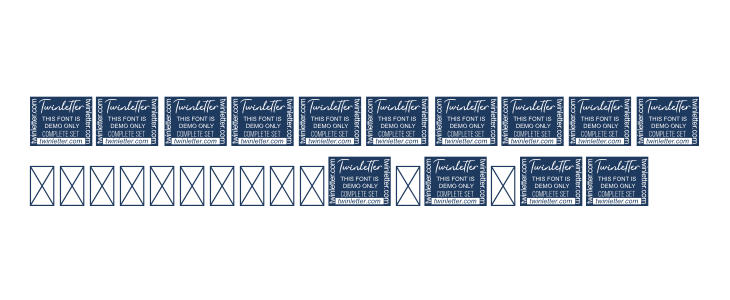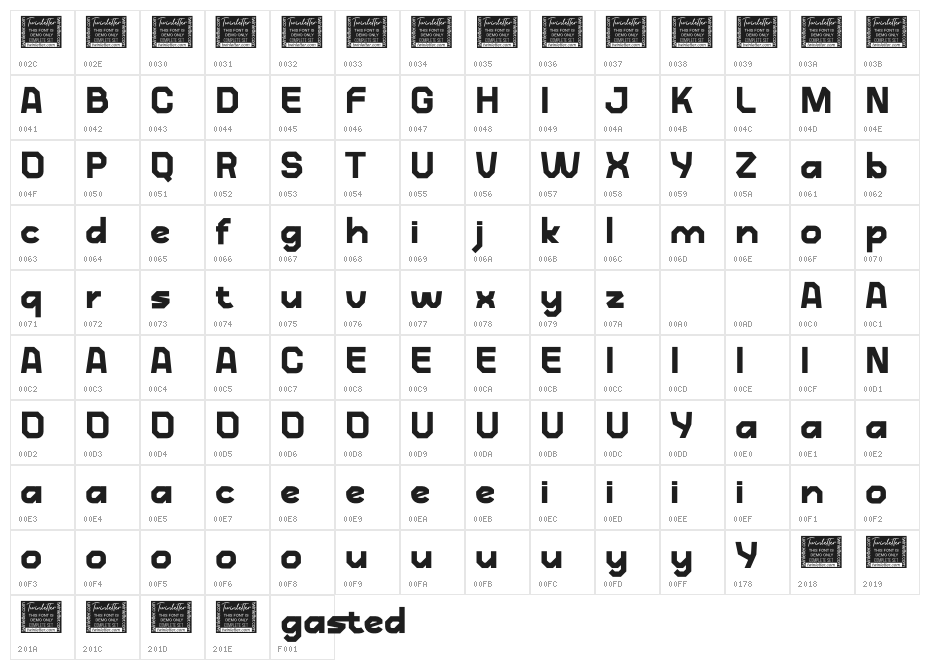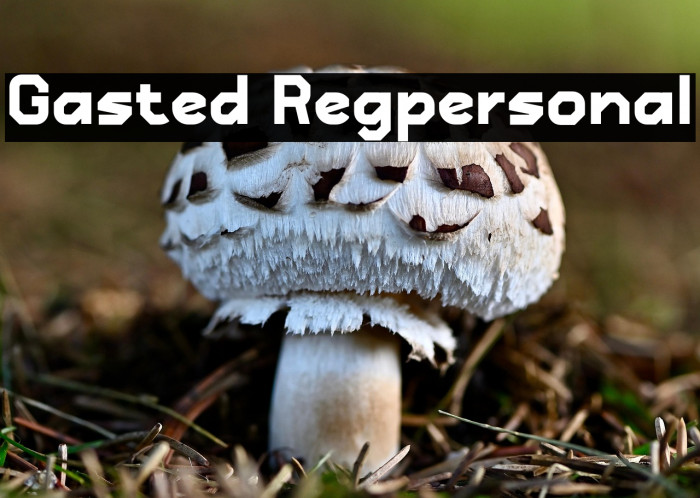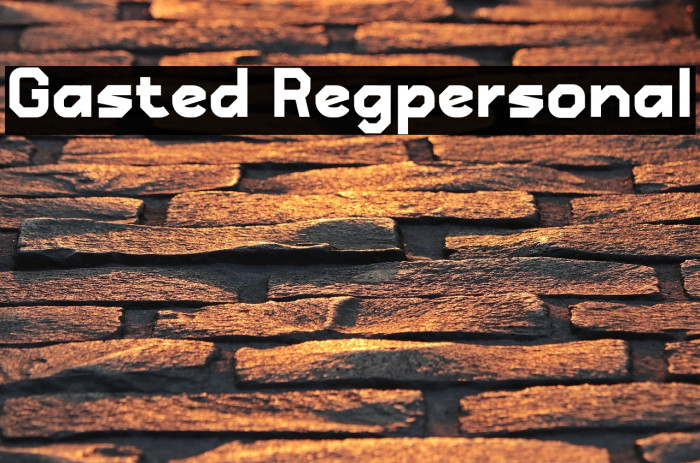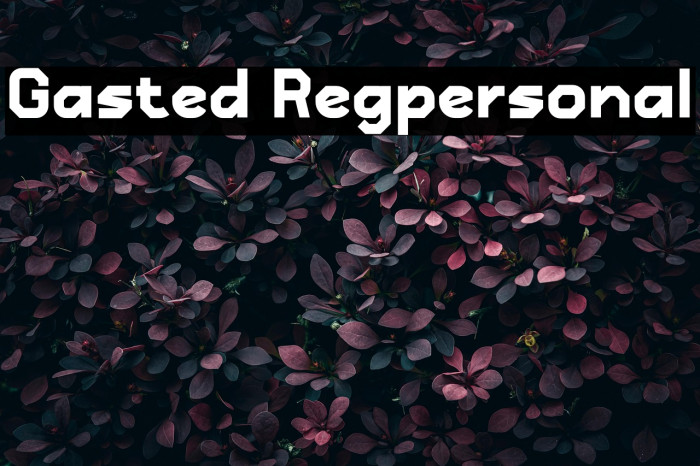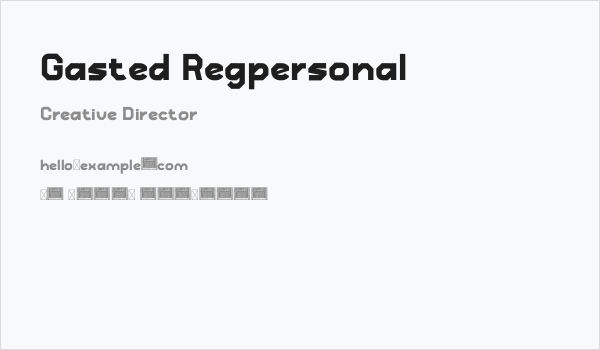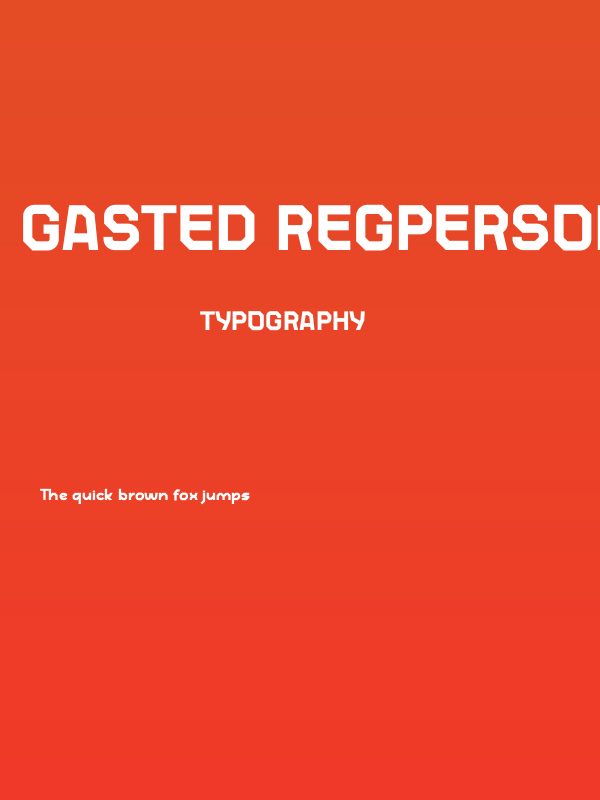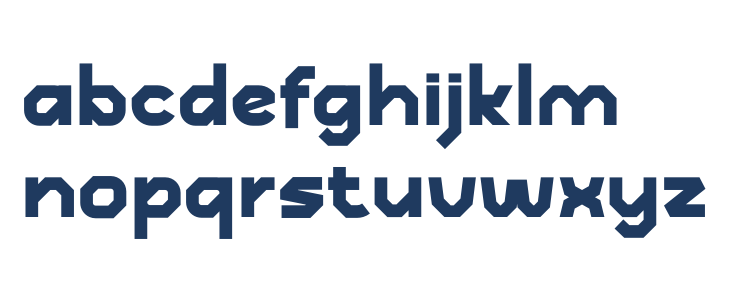
Gasted Regpersonal Font
Gasted Regpersonal Description
This font features a bold and geometric design, characterized by its angular and sharp edges. The uppercase letters have a strong presence with a uniform height, while the lowercase letters maintain a consistent style with slightly rounded edges that soften the overall look. The font's structure is solid and impactful, making it suitable for attention-grabbing headlines. The numbers and special characters follow the same geometric pattern, ensuring a cohesive appearance across all characters. Its modern and edgy style is perfect for projects that require a contemporary and bold aesthetic.
| Proposed Projects | Ideal for branding, posters, headlines, and any design that requires a strong visual impact. |